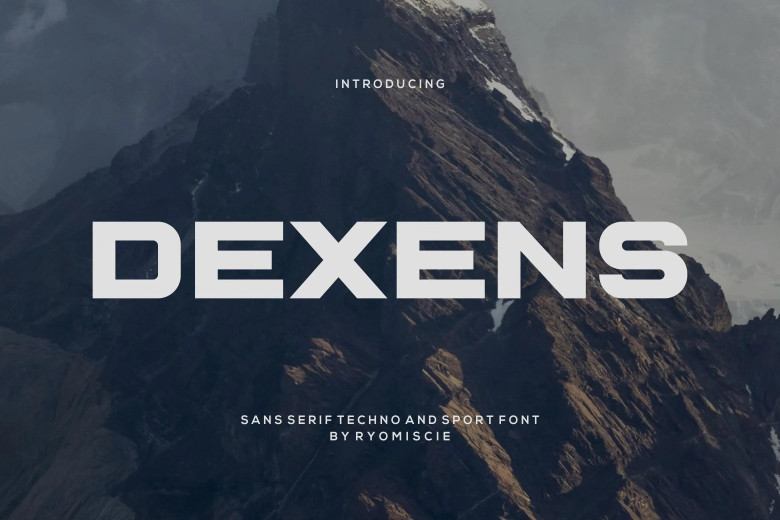
Dexens Font
Dexens is a Modern Font suggests that it is a type of font that can be described as a display font that is unabashedly modern and sincere. Conclusively, the font can be used for any branding project such as Logo branding, t-shirt branding, brand identity of esport teams and many others. Very good in many different situations.
Dexens Sans Serif Display Font